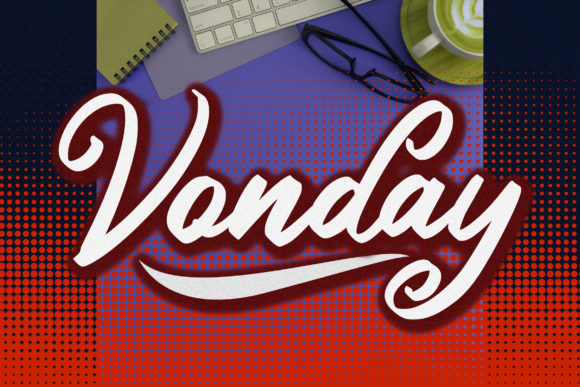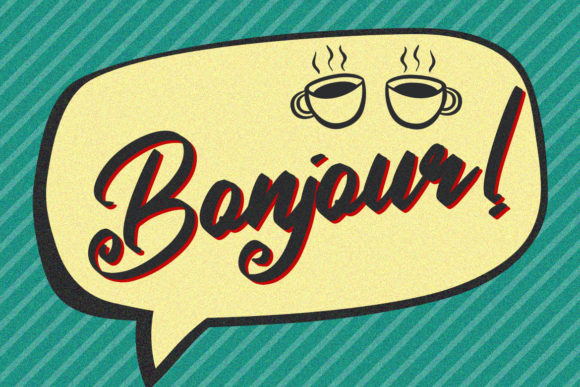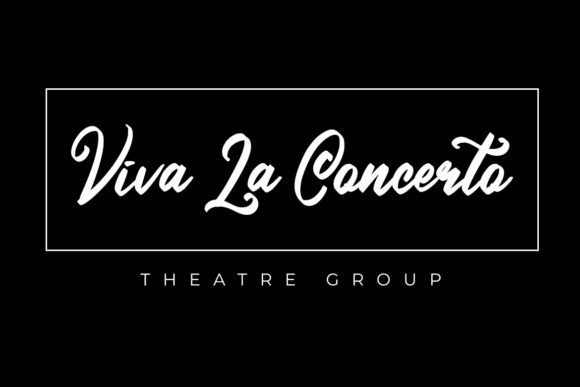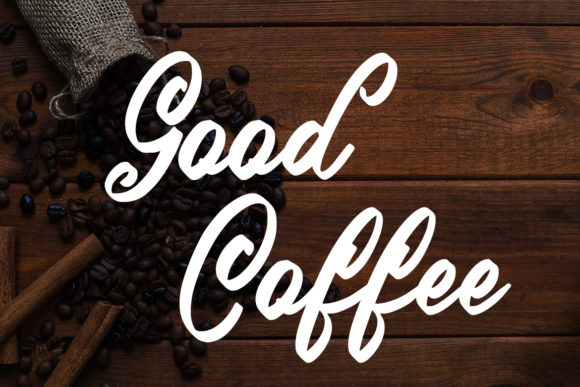
HomeScript FontsVonday Font Script Fonts Vonday Font FacebookXPinterestWhatsApp Vonday Font Poster 2 Vonday Font Poster 3 Vonday Font Poster 4 About Vonday Font Vonday is an equally charming and cool script font that radiates nostalgia. DOWNLOAD NOW People also explored Hutullan Font Moulay Font The Star Font Allnoob Font Rainbow Monogram Font Deling Marrmosta Font Pirate Font Zoology Font 305 0 TagsVonday Font Previous articleCobain Aja FontNext articleBetter Caller Font LEAVE A REPLY Cancel reply Comment: Please enter your comment! Name:* Please enter your name here Email:* You have entered an incorrect email address! Please enter your email address here Website: Save my name, email, and website in this browser for the next time I comment. Personal Use Free Kensin Personal Use Free Read more about this font Latifah Personal Use Free Read more about this font Wadjet Personal Use Free Read more about this font Dakwart Letter Personal Use Free Read more about this font BLOG Best Fonts for T-Shirt Design – Top 2025 Picks In 2025, t-shirt design has become more than just fashion—it's a form of self-expression. Whether you're... Top 7 Google Fonts Alternatives for Faster and Privacy-Friendly Web Design (2025) 5 Fonts That Will Dominate Design Trends in 2026 Exploring Font Trends